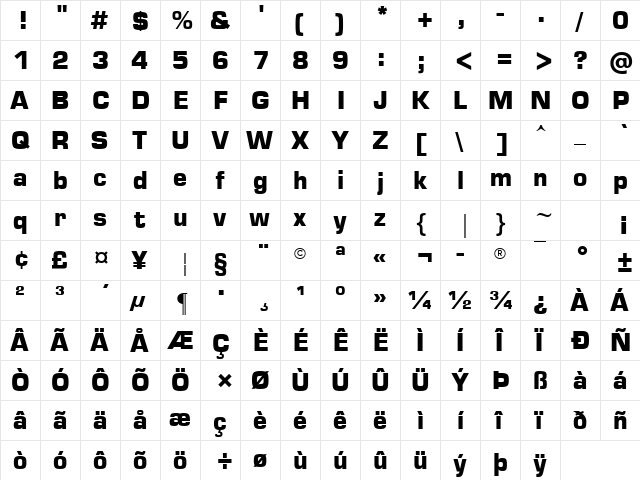
Metrostyle Bold
Design Context for Metrostyle Typeface
Metrostyle offers clean, dependable letterforms without strong stylistic allegiance, making it a practical choice for designers who need flexibility. Its bold stroke weight gives it real presence on the page.